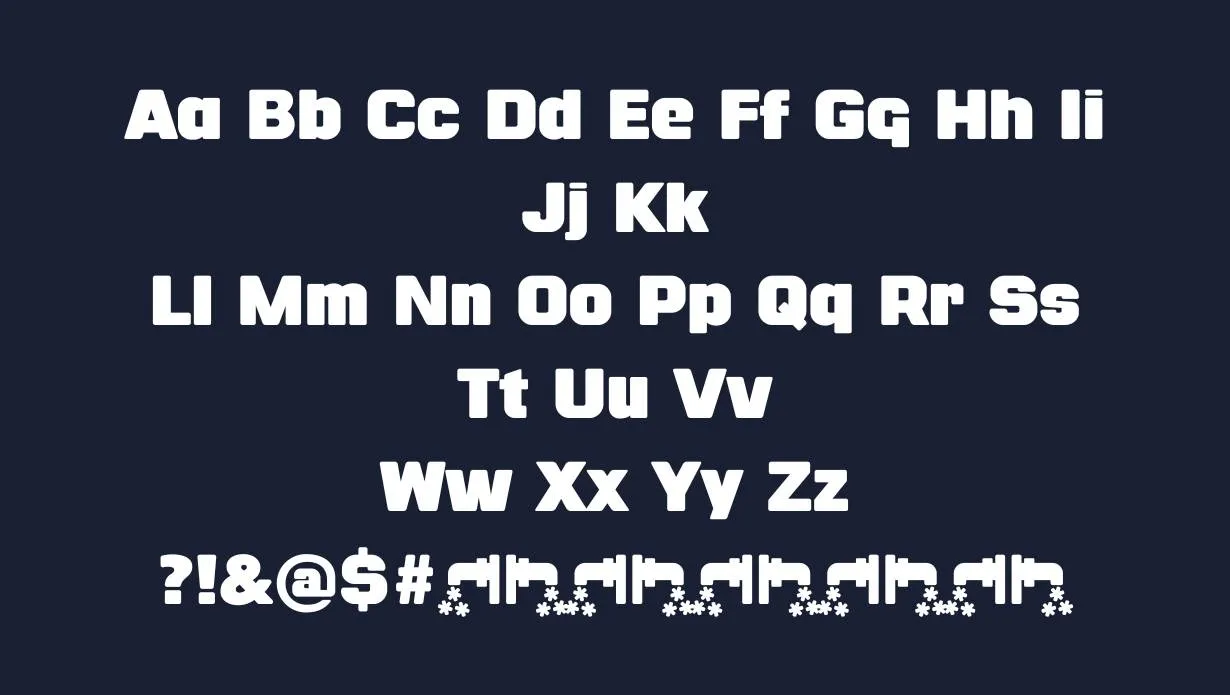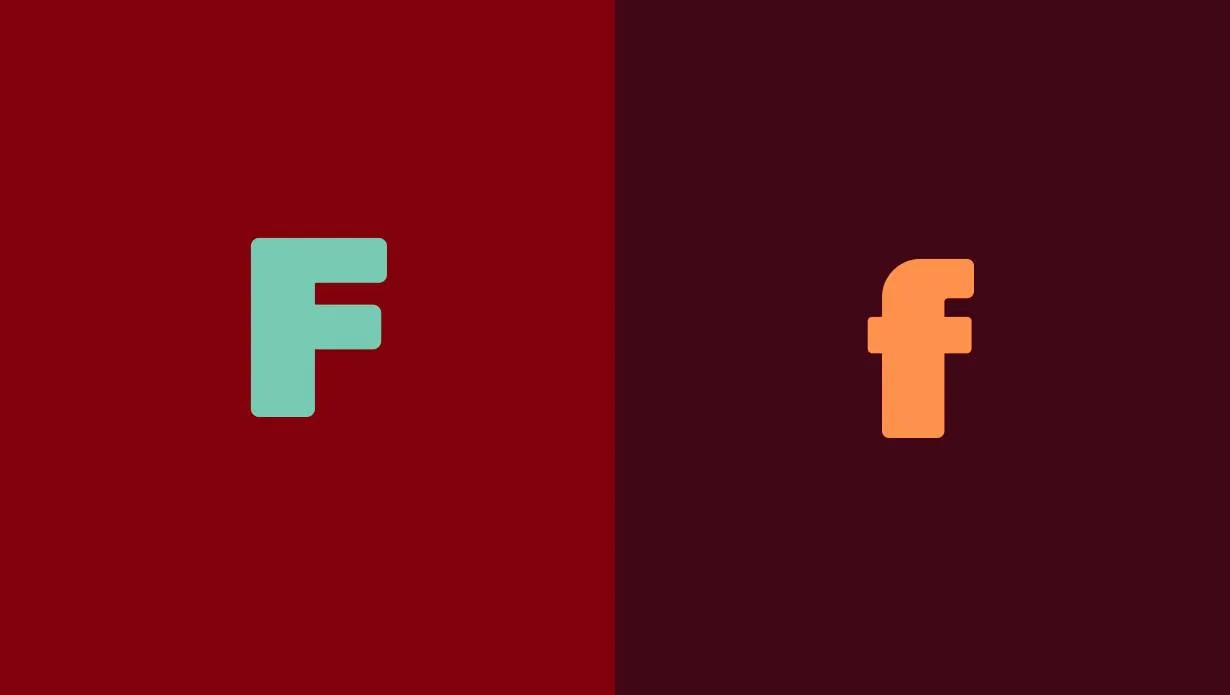
The Fontanero Font is part of the geometric Sans-Serif typeface group created by Fernando Haro and distributed by deFharo. With its striking texture and square-rounded letters, it is ideal for eye-catching designs. If you want your text to stand out, this font is the perfect choice for bold displays.
Fontanero Font Family
It also includes 189 characters in large and small letters, figures, bitcoin symbols, ascending shorts, and a wide range of international language support.